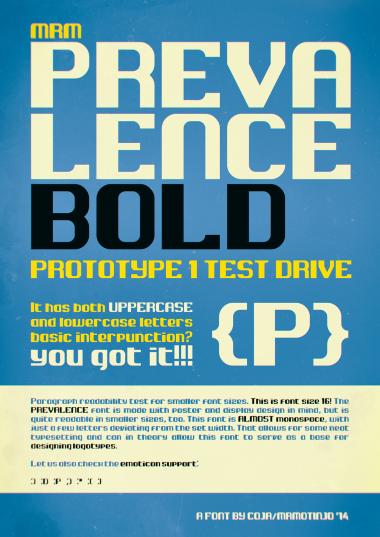
• A bold, stout and rounded design prototype with basic Latin and Serbian Latin support. My first experiment with non-default grid configuration! If you have any crits and/or suggestions, I'd love to hear them! :D
Very good
Add ЋИРИЛИЦА
:)
Yep, I have that planned ;)
A great start - good luck with the diacritics.
Nice!